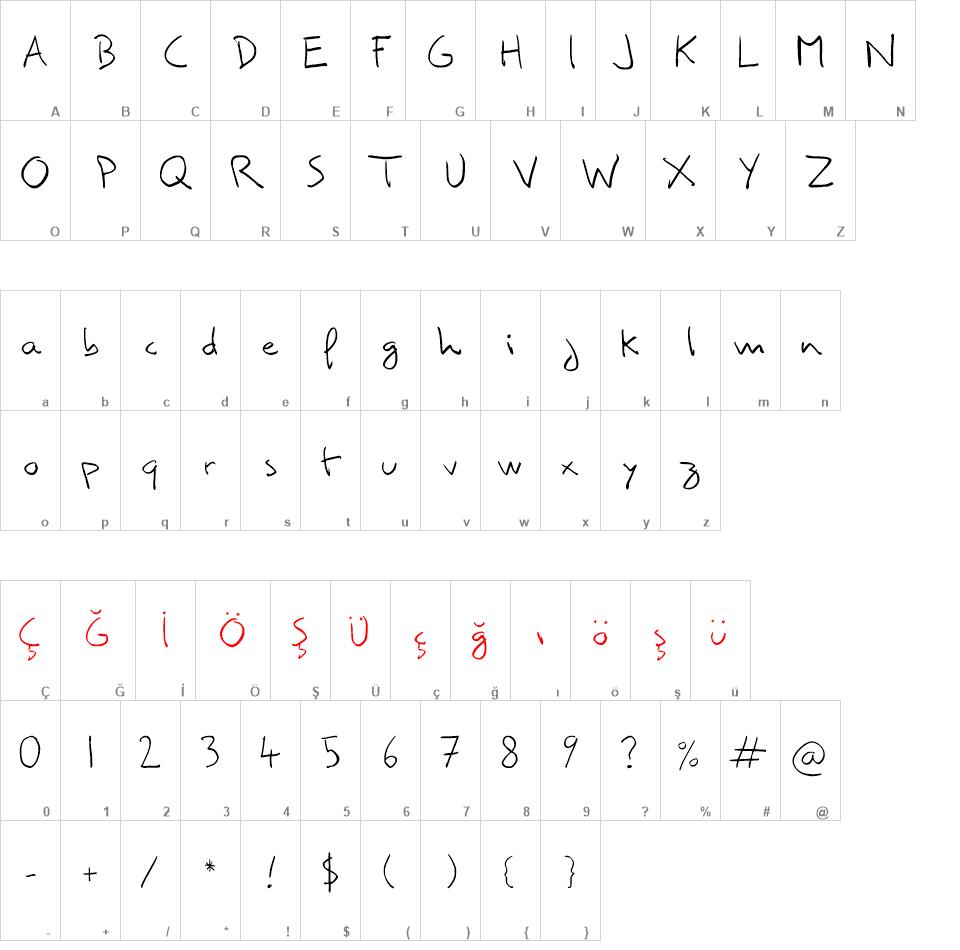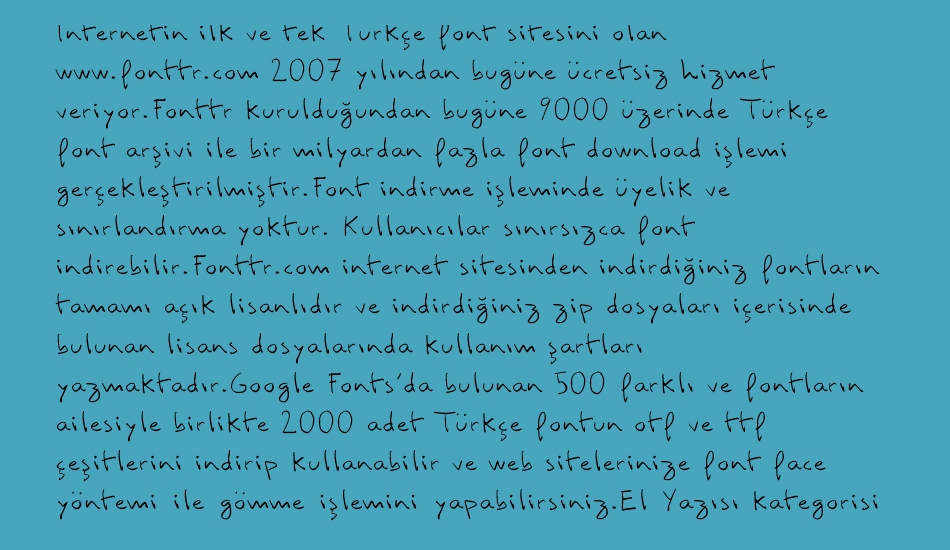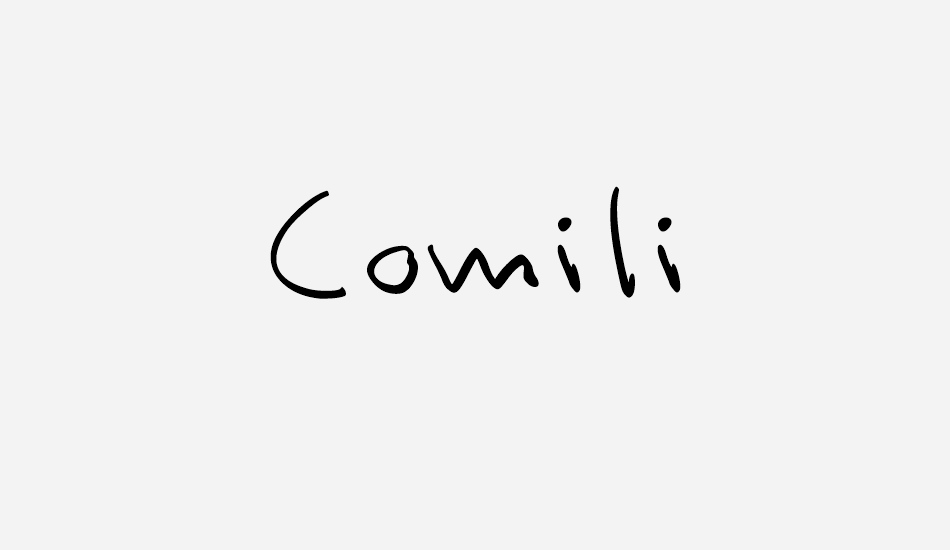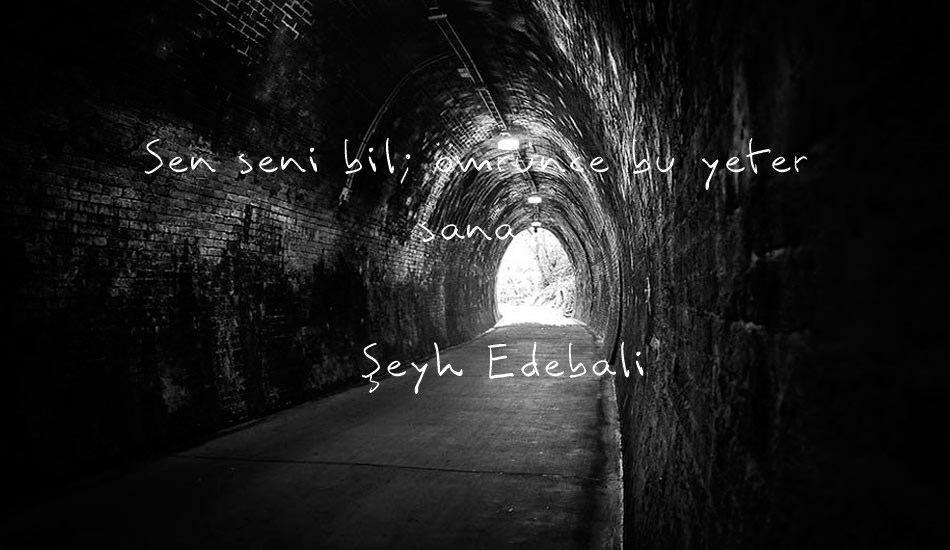
Comili font
# Comili Font
A libre handwritten font designed for libre comics!
I have drawn this font for [my comics](http://nylnook.com/en/comics/), based on my own handwriting, to fit my drawings.
It's a light and large font, meant for text more than titles. I use it both lowercase and uppercase, not only uppercase.
I extend it step by drawing new characters when I need them in my comics. Because it's a font made for comics and for libre comics, it takes a few liberties with Unicode (see the © ® ™ “ ” „ ? characters, for example the copyright symbol is draw as a copyleft). It's intentional ;)
Comili is an acronym for "Comic" and "Libre" (Free as in freedom). It also sound somehow like my first name, Camille, because it's based on my handwriting.
Only the regular font variant, "Book", is provided until now. I'm waiting to improve the base font before creating other variants.
This font is drawn to be used in French and English, and tested in French and English, but should also work for most western language (Spanish, German, Italian, Czech…). If a character is missing for your project or language, specially if you are translating my comics, please [report an issue](https://framagit.org/nylnook/comili/issues) and I'll do my best to add it (your help is welcome for non-Latin languages). Some Greek and Chinese characters are also drawn.